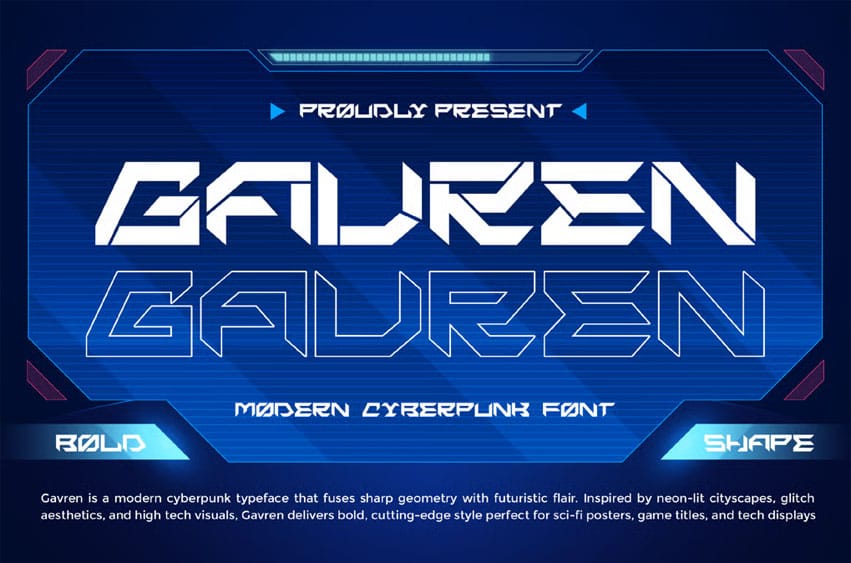
Gavren Font is a bold cyberpunk typeface that blends angular geometry with cutting-edge design. Inspired by neon grids, glitch tech, and futuristic architecture, Gavren brings a sleek, high-energy feel to any visual. Perfect for sci-fi posters, tech branding, esports graphics, digital titles, and anything that needs a sharp, modern edge.